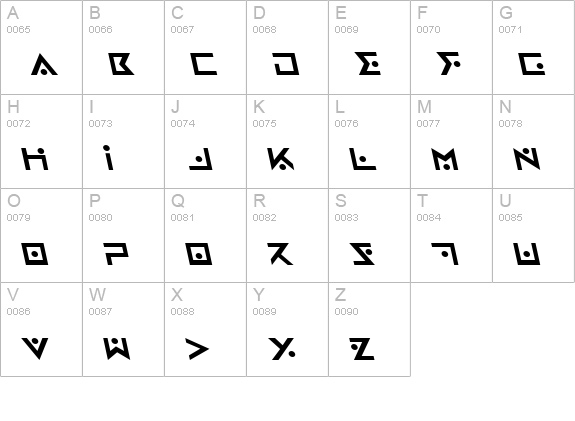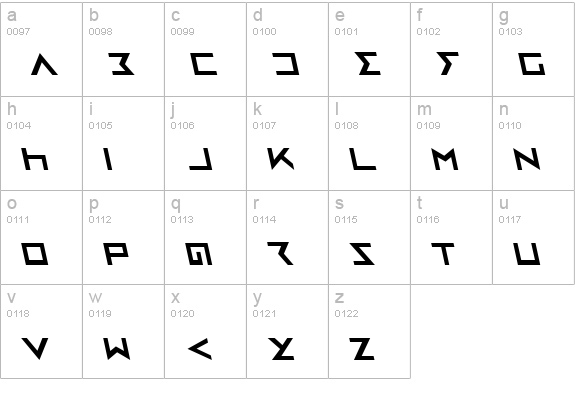
Iron Cobra Leftalic font is a bold and dynamic typeface that exudes strength and power. With its slanted letterforms and sharp edges, this font commands attention and makes a bold statement wherever it is used. Whether for headlines, logos, or branding materials, Iron Cobra Leftalic font is sure to leave a lasting impression. What sets Iron Cobra Leftalic font apart is not only its striking design, but also the fact that it is available for free download at FontsMarket.com. This means that you can easily access and use this powerful font without any cost, making it a valuable resource for designers, artists, and creatives looking to add a touch of boldness to their projects. With Iron Cobra Leftalic font, you can unleash your creativity and create designs that stand out from the crowd. So why wait? Download this striking font today and take your designs to the next level!